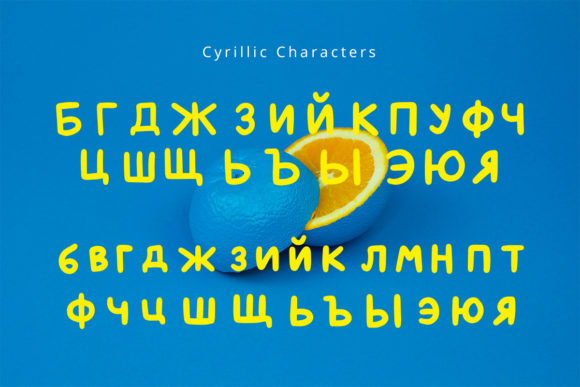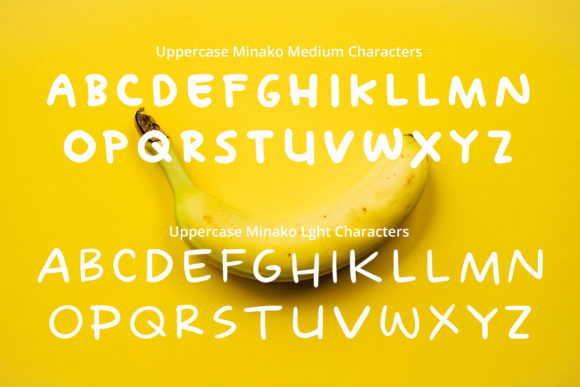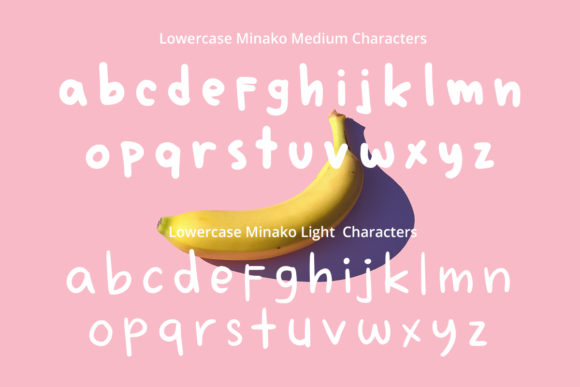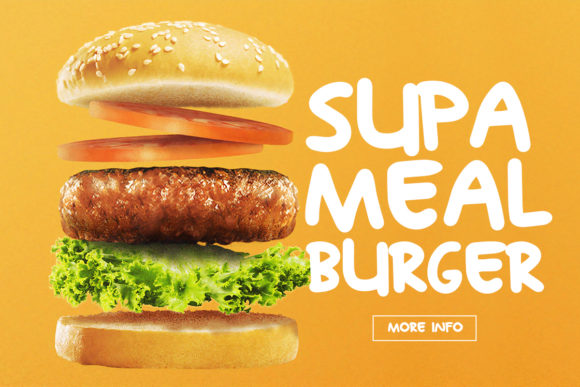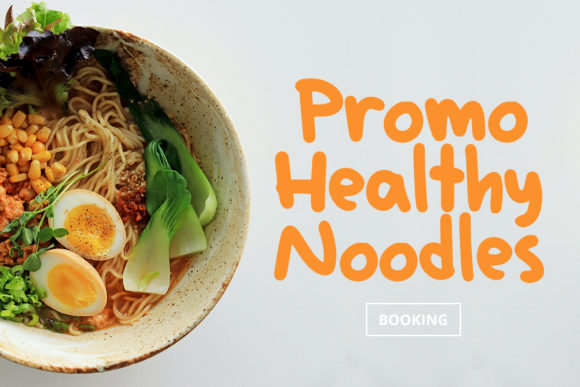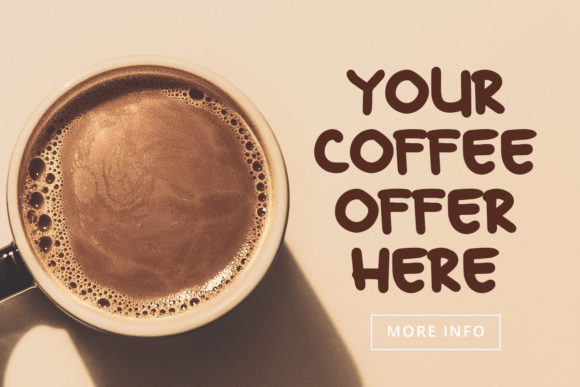
Introduction to Minako Font
Minako is a sweet and friendly handwritten font, created with the help of a brush pen.
Fall in love with its incredibly versatile style and use it to create gorgeous wedding invitations, beautiful stationary art, eye-catching social media posts, and much more .
Key Features of Minako Font